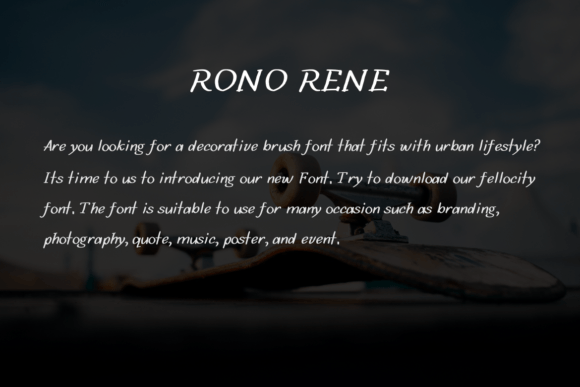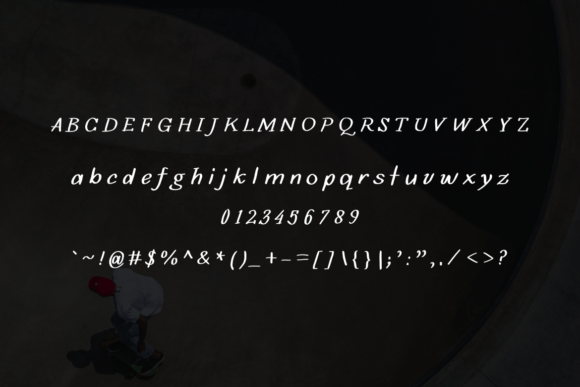
About Rono Rene Font
Are you looking for a handwritten brush font that fits with the urban lifestyle? Rono Rene is here to help you out! Add it confidently to your design ideas and you will love the results!